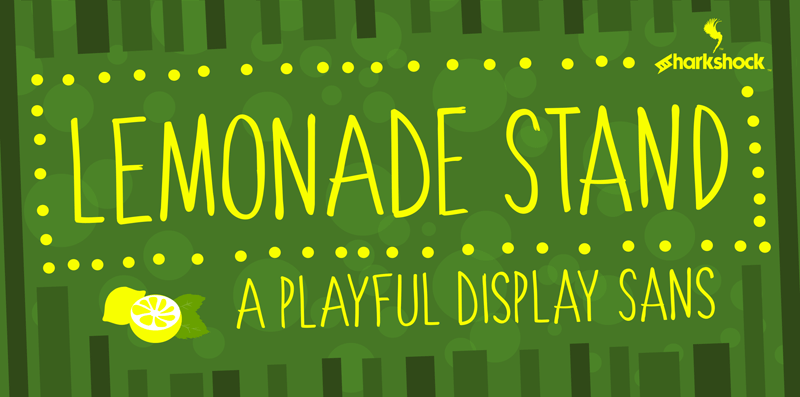
Looking for the perfect all-caps display font to accentuate your next project? Lemonade Stand is a stylish yet childlike sans serif that doesn’t take itself too seriously. The characters are designed with minimum contrast to roughly resemble the strokes of a thin paintbrush. Feature it in a logo, on packaging, or in a children’s book. Basic Latin, extended Latin, diacritics, Cyrillic, punctuation, and kerning are all included in the full version. The demo features basic Latin, Cyrillic, and limited punctuation. The full version is $20 for personal use only. Just use the PayPal donation button on our website. Please note this $20 does NOT constitute a contract for commercial use. For information on commercial licensing please visit www.sharkshock.net/license. Thank you for your support! visit www.sharkshock.net for more and take a bite out of BORING design! Tags: brush, strokes, marker, sans, sketch, sketched, scribble, drawing, kid, children, kids, pencil, chalk, chalkboard, thick, loopy, curvy, angle, French, German, Spanish, European, Russian, Cyrillic, display, accents, diacritics, logo, project, scrapbooking, movies, movie, poster, book, publishing, lines, weight, all, caps |